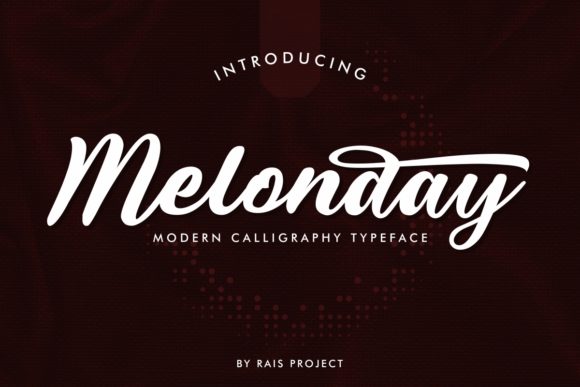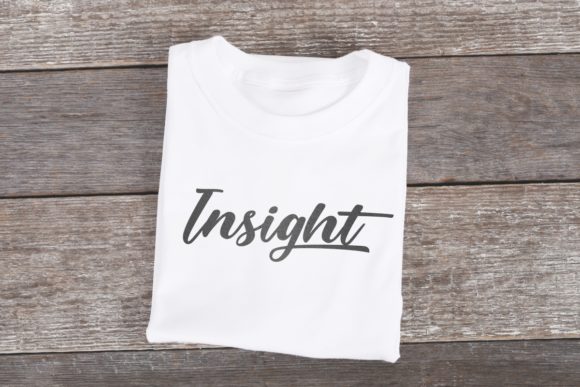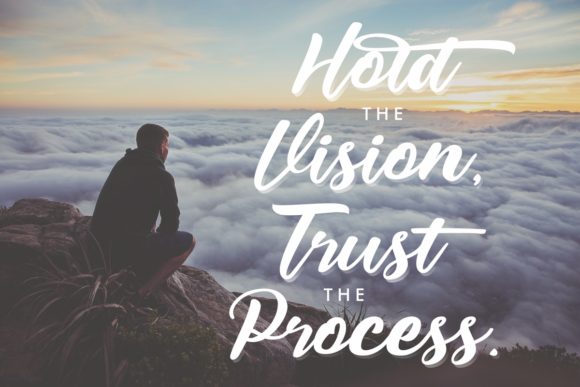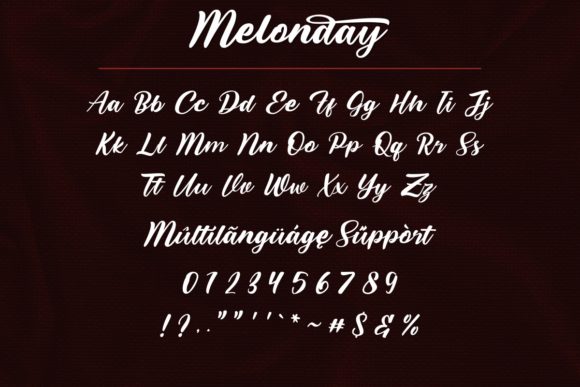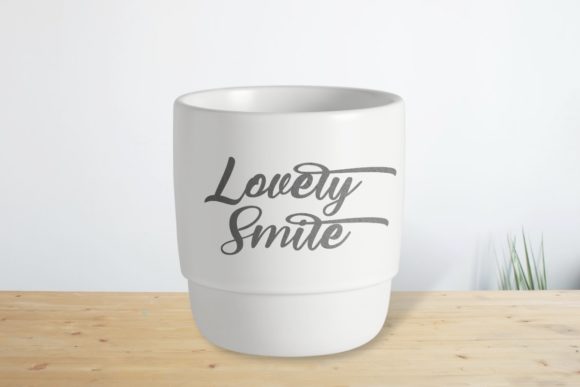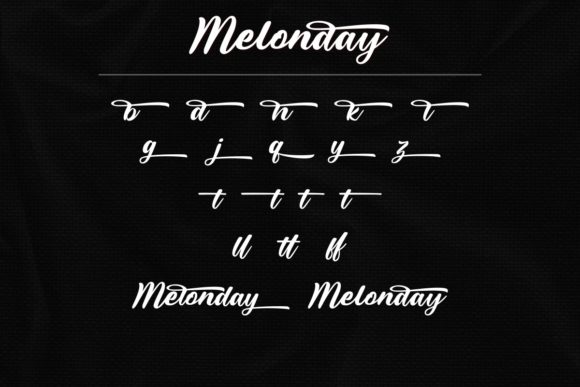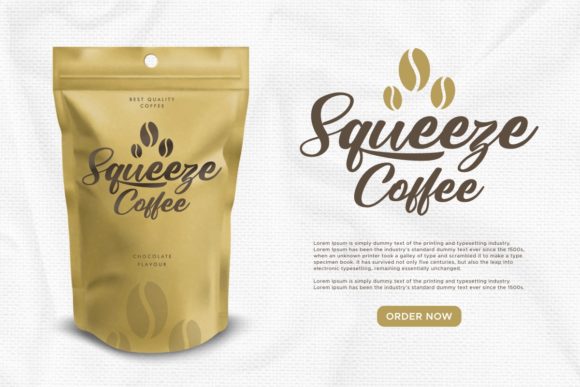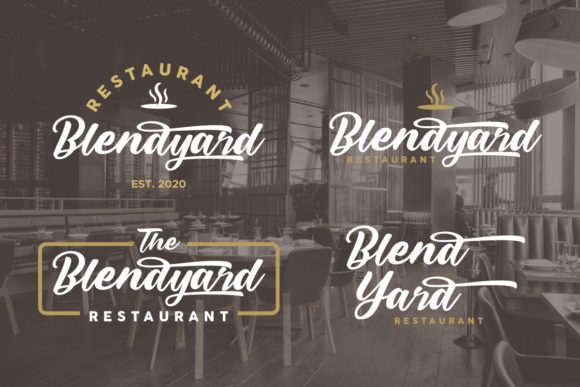
Melonday Font
About Melonday Font
Melonday is a delicate and elegant handwritten font that exudes charm and sophistication. Its well-rounded letters and graceful strokes make it a true masterpiece, perfect for a wide range of design projects. With its incredible versatility, Melonday can add a touch of magic to your creations.
Elegant and Delicate: Melonday’s elegant and delicate appearance gives your text a refined and sophisticated look. It conveys a sense of grace and beauty, making it suitable for projects that require a touch of sophistication.
Well-Rounded Letters: The font’s well-rounded letters create a harmonious and balanced visual appeal. Each letter flows seamlessly into the next, enhancing the overall aesthetics of your designs.
Masterpiece in Style: Melonday’s exquisite style makes it a true masterpiece in the world of handwritten fonts. Its craftsmanship and attention to detail make it stand out from ordinary fonts, adding an element of artistic expression to your work.
Versatile Usage: With its versatility, Melonday can be used for a wide array of projects. From wedding invitations and stationery to logos, branding, social media graphics, and more, the font adapts effortlessly to different design contexts.
Spectacular Designs: By using Melonday, you have the power to create spectacular designs that leave a lasting impact on your audience. Its refined appearance adds a touch of sophistication and elegance to your creative projects.
PUA Encoded: The font’s PUA encoding allows you to access all of its glyphs and swashes with ease. This feature provides you with a plethora of design options, giving you the freedom to customize and personalize your projects.
Handwritten Charm: Melonday’s handwritten charm evokes a sense of warmth and authenticity, making it ideal for projects seeking a personal touch. It brings a human element to your designs, making them more relatable and appealing.
Fall in Love: Once you start using Melonday, you’ll undoubtedly fall in love with its unique style and versatility. It’s a font that sparks creativity and captures hearts, making it an excellent choice for design enthusiasts and professionals alike.
In conclusion, Melonday is a delicate and elegant handwritten font that elevates your designs to new heights. Its well-rounded letters, PUA encoding, and inherent charm make it a delightful choice for a wide range of projects. Use Melonday to create spectacular and enchanting designs that leave a lasting impression on your audience.